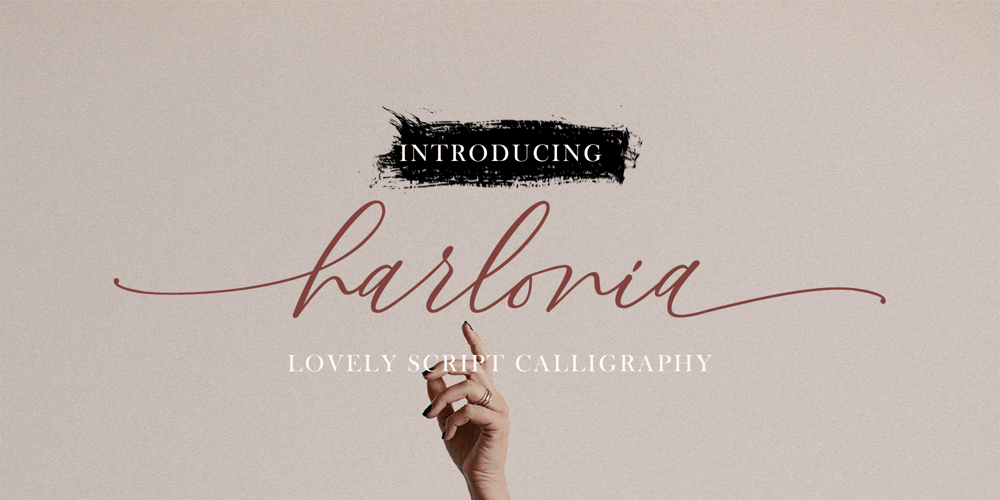
Harlonia
Harlonia font
Harlonia Font Family was designed by Fadhil Aqsa and published by Meutuwah. Harlonia contains 1 styles and family package options. INTROHarlonia Script, is a modern calligraphy font, with characters dance along the baseline and elegant touch. With almost 375 glyphs. Opentype features with stylistic alternates, ligatures and multiple language support. Can be used for various purposes such as logos, wedding invitation, letterhead, signage,news, t-shirt, heading lable, posters, badges etc.Thank you very much for purchasing and please let me know if you have any questions?